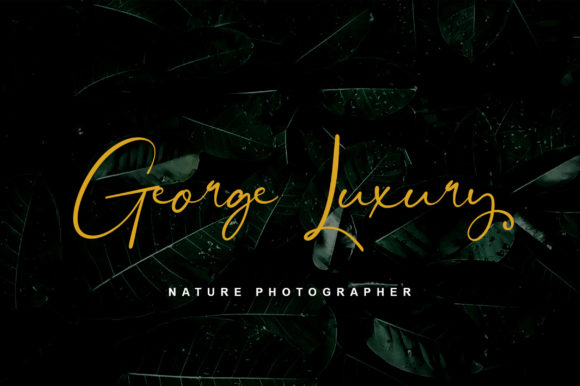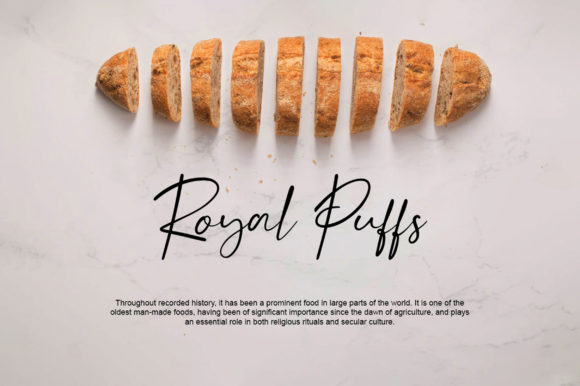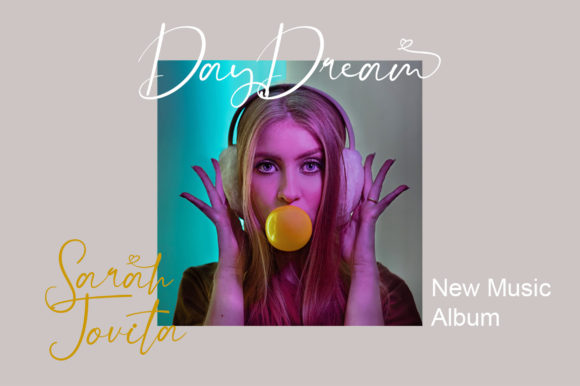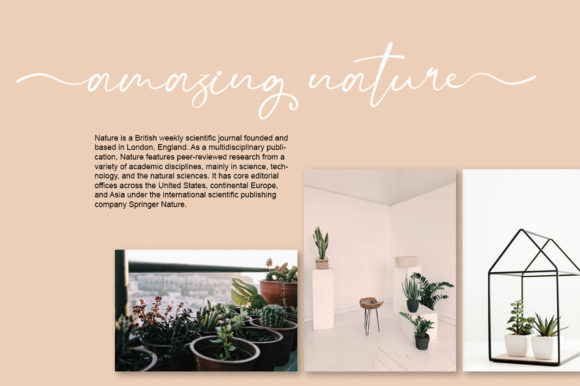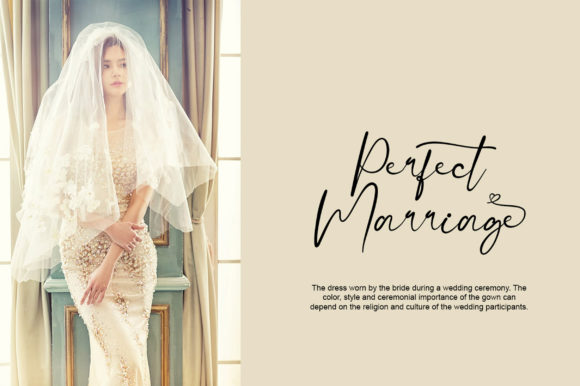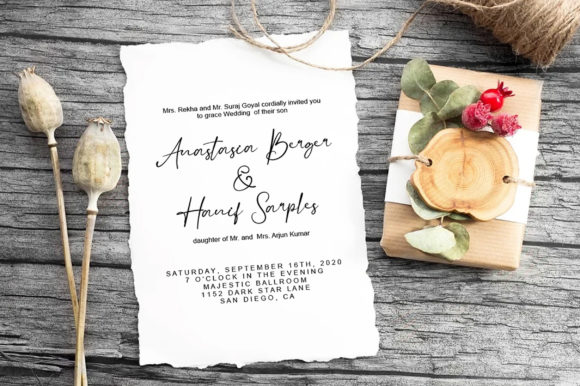
Introduction to Migatmare Font
Remember that moment when you stumble upon the perfect font for your creative project? The one that instantly elevates your design and makes it stand out from the crowd? For designers, finding that special font can be a game-changer, and we’re excited to introduce you to one that’s sure to become a favorite: the Migatmare Font.
This unique script font is a design treasure trove, offering endless possibilities for creating personalized styles that leave a lasting impression. Whether you’re crafting a wedding invitation, a logo, or a signature, the Migatmare Font is sure to add a touch of elegance and sophistication to your work. Its versatility and high-quality design make it a valuable resource for designers of all levels, and the best part? It’s available for free download, making it an accessible design resource for anyone looking to elevate their creative projects.
Key Features of Migatmare Font
- High-quality design resource ideal for creative projects, offering a unique and stylish touch.
- Includes a range of characters, including uppercase and lowercase letters, numbers, and special characters, to cater to diverse design needs.
- Designed to be highly legible, even at small font sizes, ensuring that your text remains clear and readable in various contexts.
- Perfect for designers looking for a unique, high-quality font to elevate their creative project and leave a lasting impression.
Honest Review: Migatmare Font
I recently came across the Migatmare Font while searching for a unique design resource to enhance my creative project. At first glance, the font seemed promising, and I was excited to see how it would perform.
- ✨ High-quality design: The Migatmare Font boasts an impressive design, making it perfect for various creative projects that require a touch of elegance.
- ⚠️ Limited character set: One of the main limitations of the Migatmare Font is its limited character set, which may not be suitable for longer texts or extensive design projects.
Overall, the Migatmare Font is a solid design resource that can elevate any creative project. While it has its limitations, its high-quality design and free download make it an excellent choice for designers who want to experiment with unique typography.
Migatmare Font
Tips for Getting the Most Out of Migatmare Font
To get the most out of the Migatmare Font, use it in conjunction with other design resources, such as graphics and images. Experiment with different font sizes, colors, and combinations to create a unique look that suits your creative project.
The Migatmare Font is perfect for use in various creative projects, including logos, graphics, typography, and presentations. Its unique design and high-quality features make it an ideal choice for designers and non-designers alike.